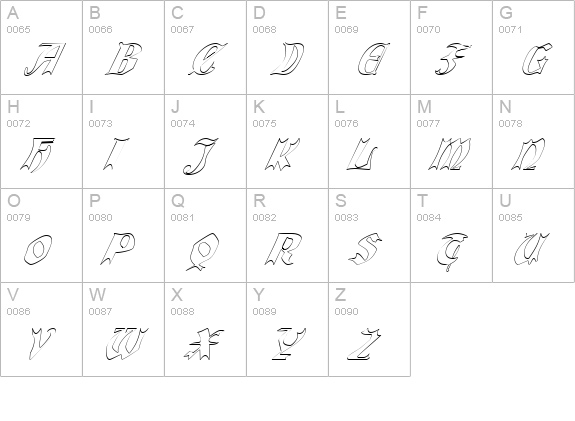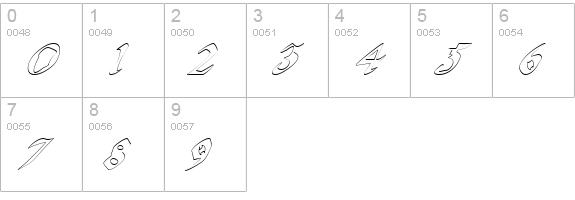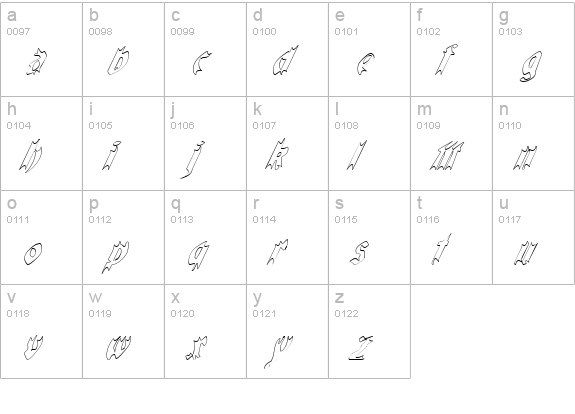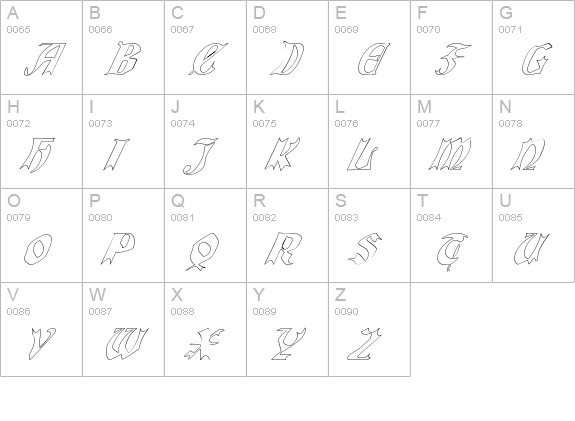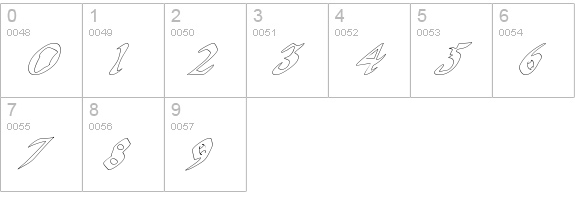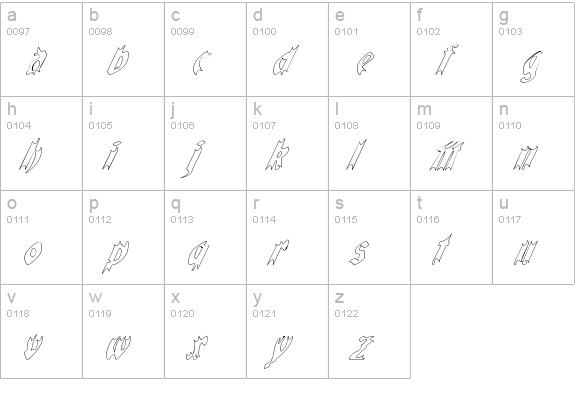
QuaelGothicHollowItalics Font Details
Introducing QuaelGothicHollowItalics, a striking and captivating font that effortlessly combines the elegance of Gothic lettering with a modern twist. This unique typeface is perfect for adding a touch of sophistication and intrigue to any design project. QuaelGothicHollowItalics features an intricate and intricate design, with its delicate lines and intricate details creating a mesmerizing visual experience. Its bold and angular letterforms exude a sense of strength and power, making it an ideal choice for headlines, logos, and branding materials. What sets QuaelGothicHollowItalics apart is not just its stunning aesthetics, but also its versatility. Whether you're designing for print or digital media, this font adapts seamlessly to any layout or format, ensuring your message is delivered with clarity and impact. One of the best things about QuaelGothicHollowItalics is that it is freely available to download at FontsMarket.com. This means that you can experience the beauty and functionality of this font without any cost, making it an excellent choice for both personal and commercial use. So why wait? Download QuaelGothicHollowItalics today and unleash your creativity. Whether you're working on a poster, website, or packaging design, this font will elevate your project to new heights, leaving a lasting impression on your audience. Get ready to make a statement with QuaelGothicHollowItalics, the font that combines tradition and innovation seamlessly.